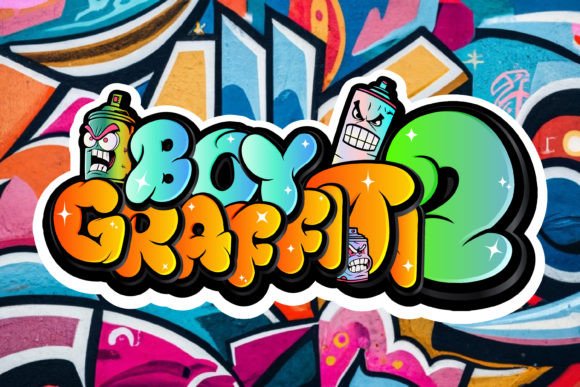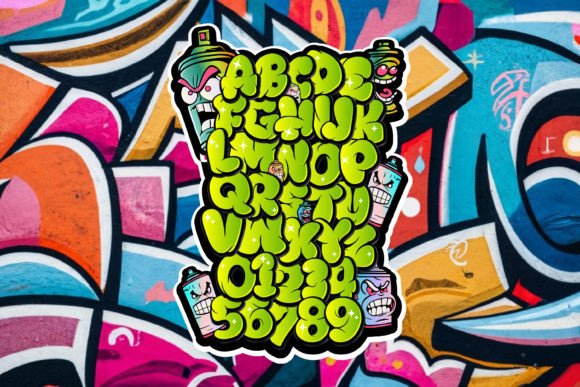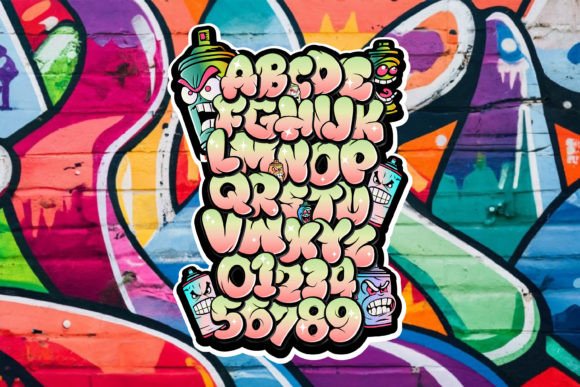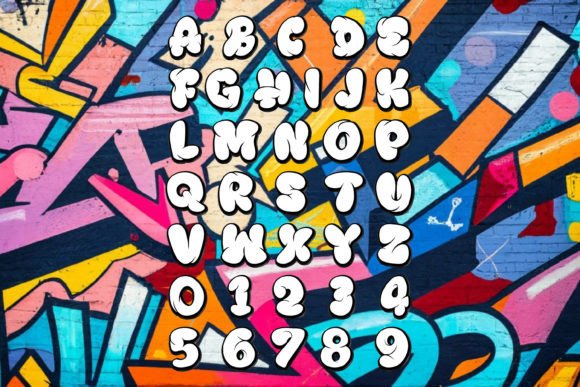
Discover the Edgy World of Graffiti Fonts: A Comprehensive Guide to Boy Graffiti 2 Font
I’ll never forget the time I was working on a street art-inspired project for a client, and I just couldn’t seem to find the right font to capture the edgy, urban vibe I was going for. I scoured the internet, tried out dozens of fonts, but nothing seemed quite right. That was until I stumbled upon the Boy Graffiti 2 Font. It was like a breath of fresh air – bold, playful, and full of personality. In this article, we’ll dive into the world of graffiti fonts, explore the features of Boy Graffiti 2 Font, and provide a comprehensive guide on how to use it in your next creative project.
What is Boy Graffiti 2 Font?
Boy Graffiti 2 Font is a bold, urban font that embodies the spirit of street art. With its intricate designs and bold lettering, it’s perfect for adding a touch of edginess to your designs. Whether you’re working on a street art project, a graphic design, or just want to add some personality to your craft projects, this font is sure to make a statement.
- ✨ Bold and eye-catching: Boy Graffiti 2 Font is perfect for making a statement in your designs.
- ✅ Highly versatile: This font can be used in a variety of projects, from street art to graphic design.
- 🎨 Intricate designs: The font features intricate designs and patterns, adding an extra layer of depth to your designs.
⚠️ One thing to note is that Boy Graffiti 2 Font can be a bit tricky to read at smaller sizes, so it’s best used for headlines or titles rather than body text. 🤔 Additionally, some of the glyphs and special characters can be a bit finicky, but with a little practice, you’ll get the hang of it!
Boy Graffiti 2 Font was inspired by the urban street art scene of the 1980s. The font’s designer, a young artist named Alex, grew up surrounded by graffiti and street art in the city. He was fascinated by the bold, playful letters and the way they seemed to come alive on the walls. With Boy Graffiti 2 Font, Alex aimed to capture the spirit of that era and bring it to designers and artists around the world.
A: Boy Graffiti 2 Font is best used for headlines, titles, and bold statements. It’s perfect for adding a touch of edginess to your designs, but can be overwhelming for body text.